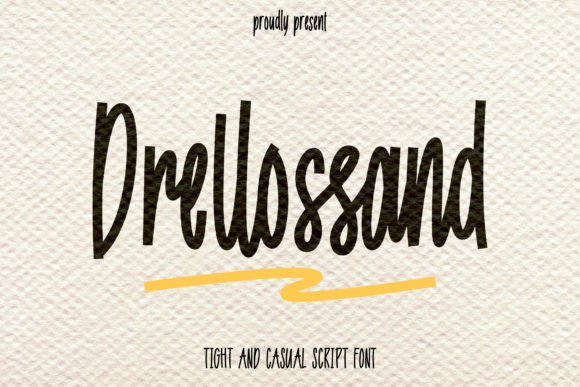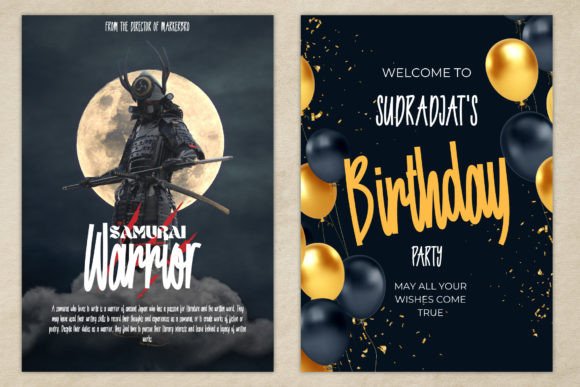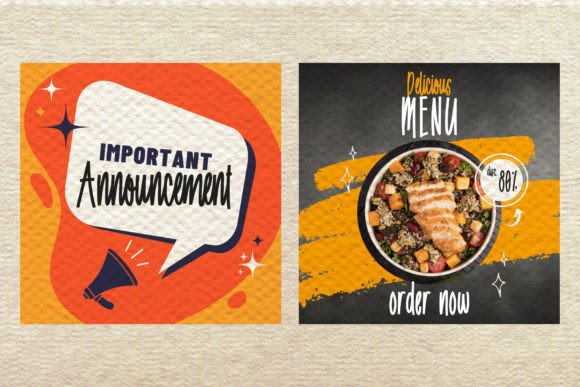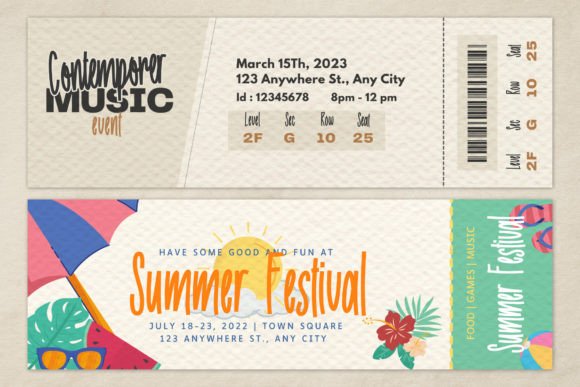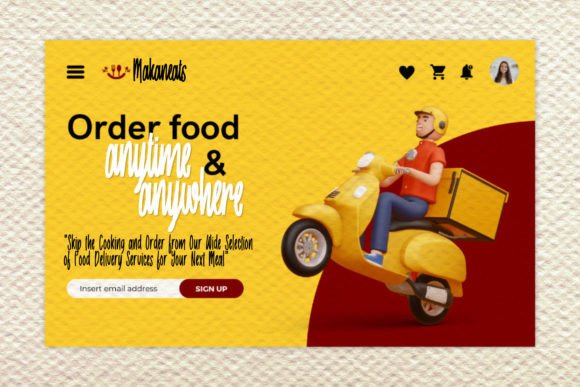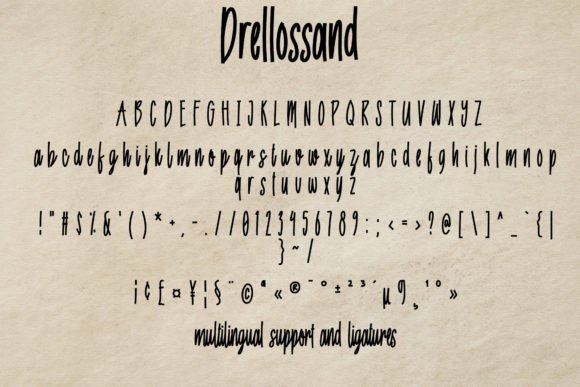
About Drellossand
Drellossand is a script font with narrow spacing, monoline looks, and a marker-like appearance. Drellossand font is a perfect choice for event posters, product packaging, invitations, and web designs.